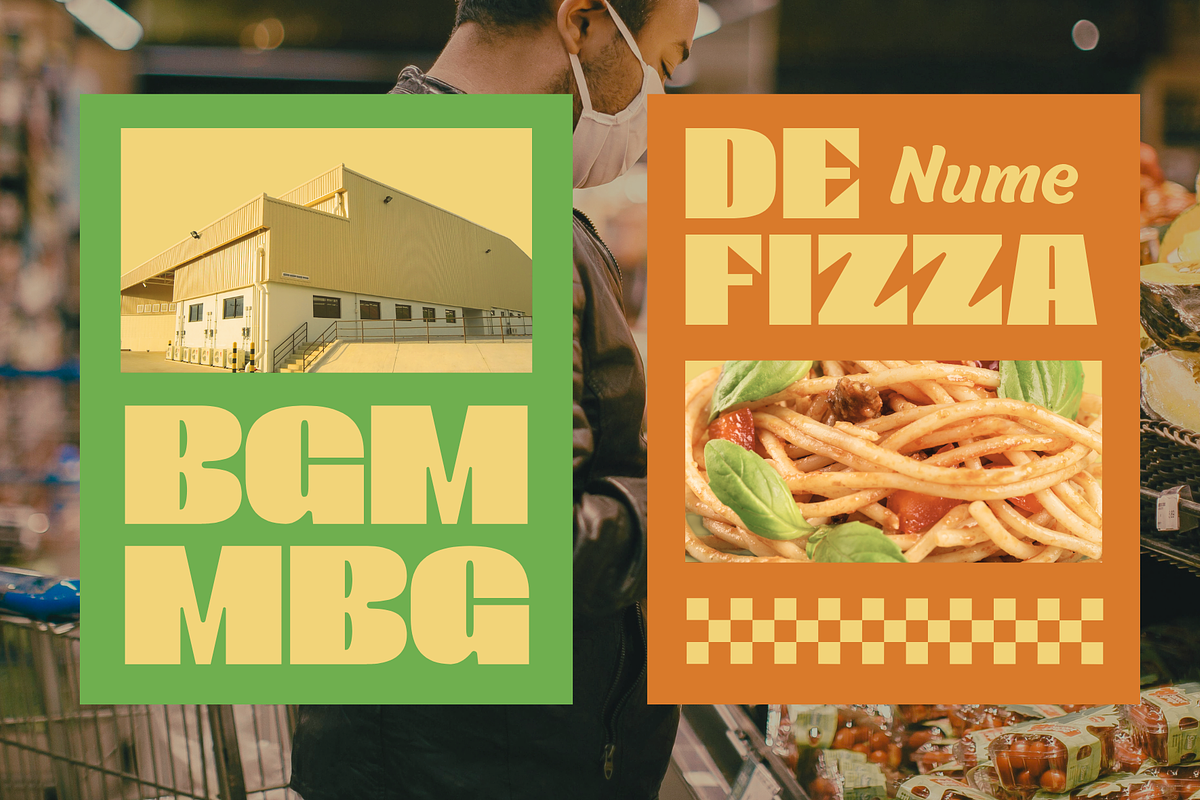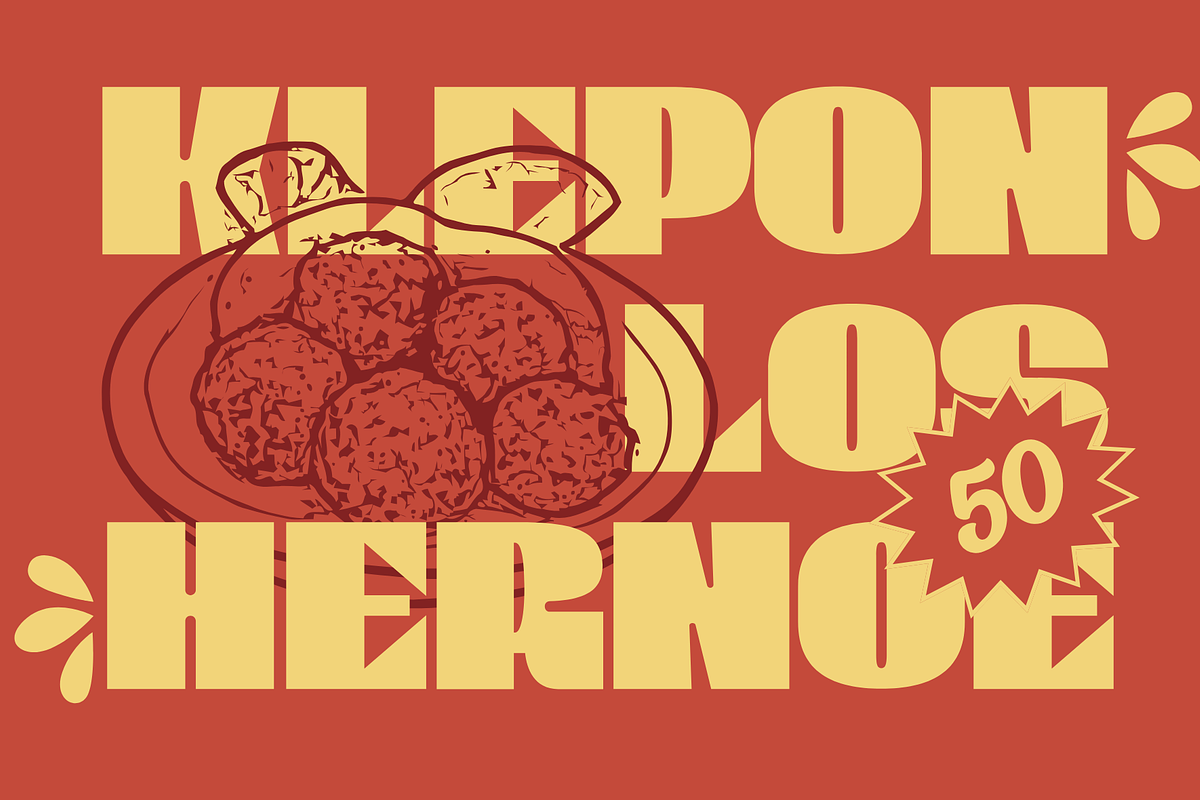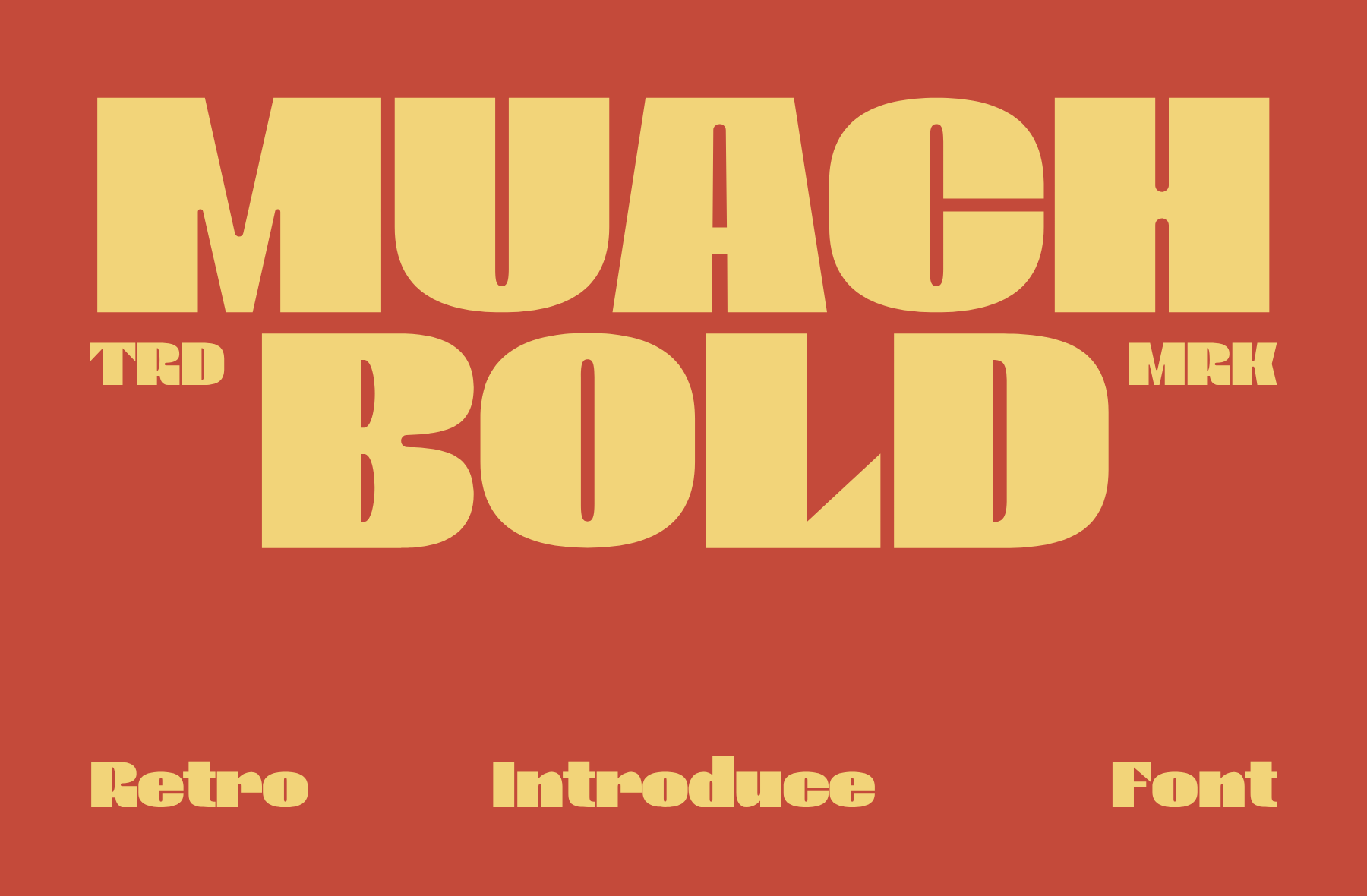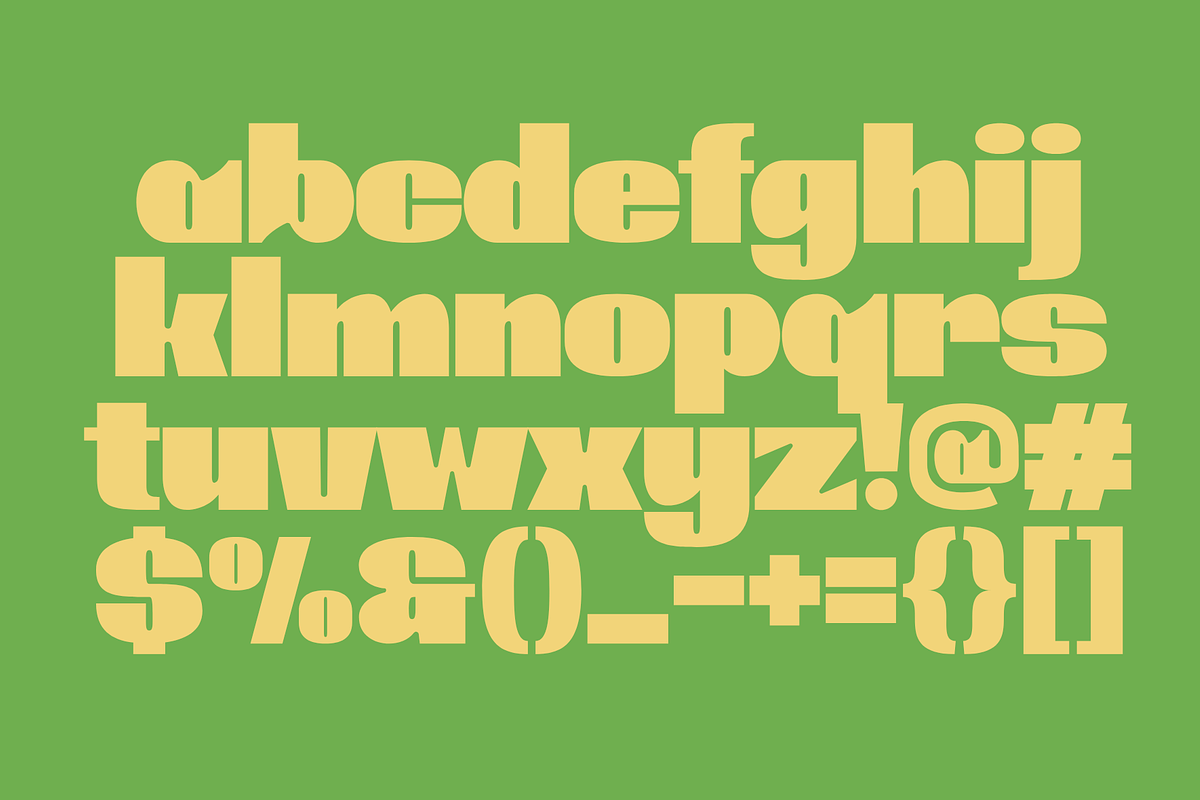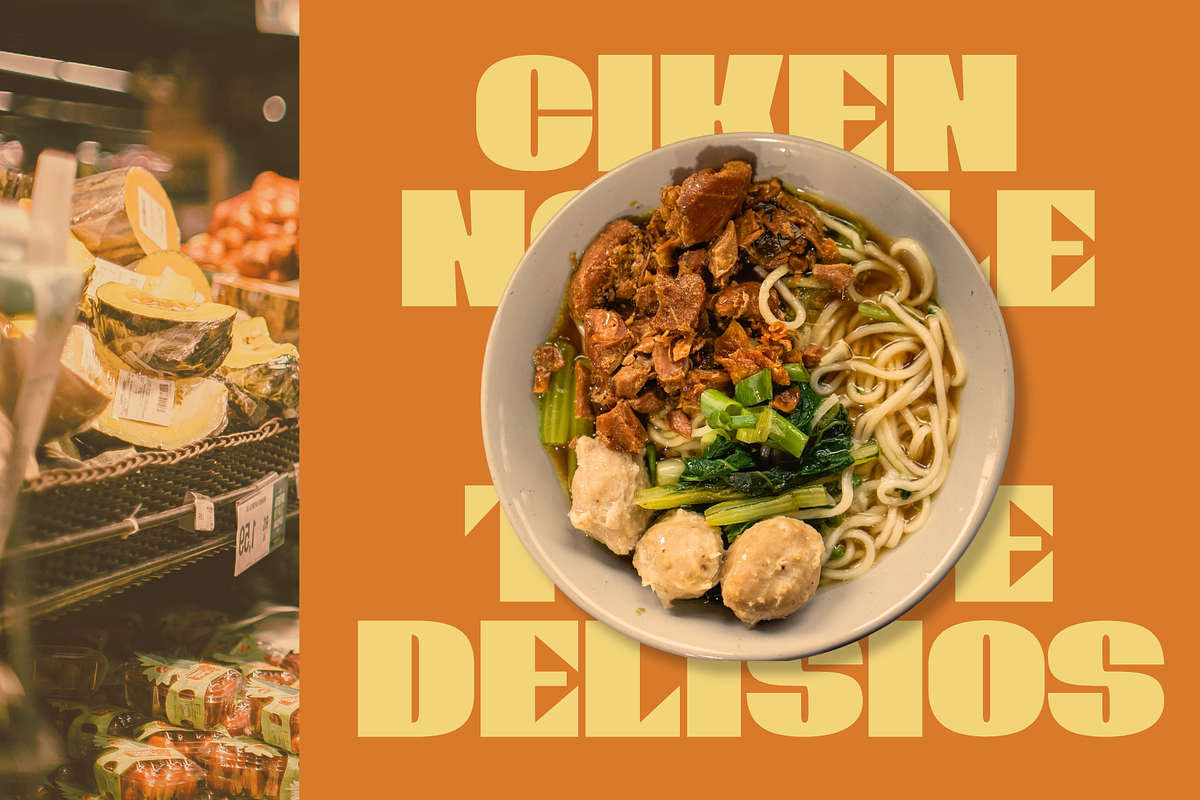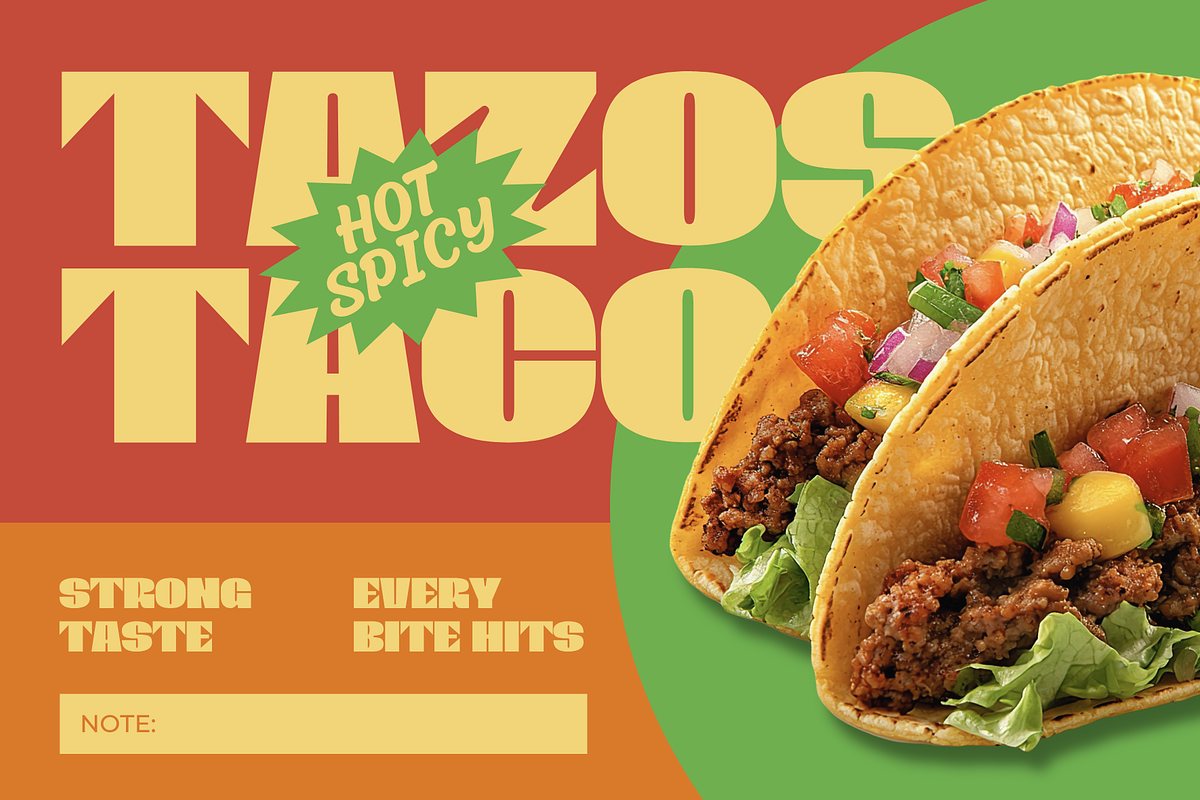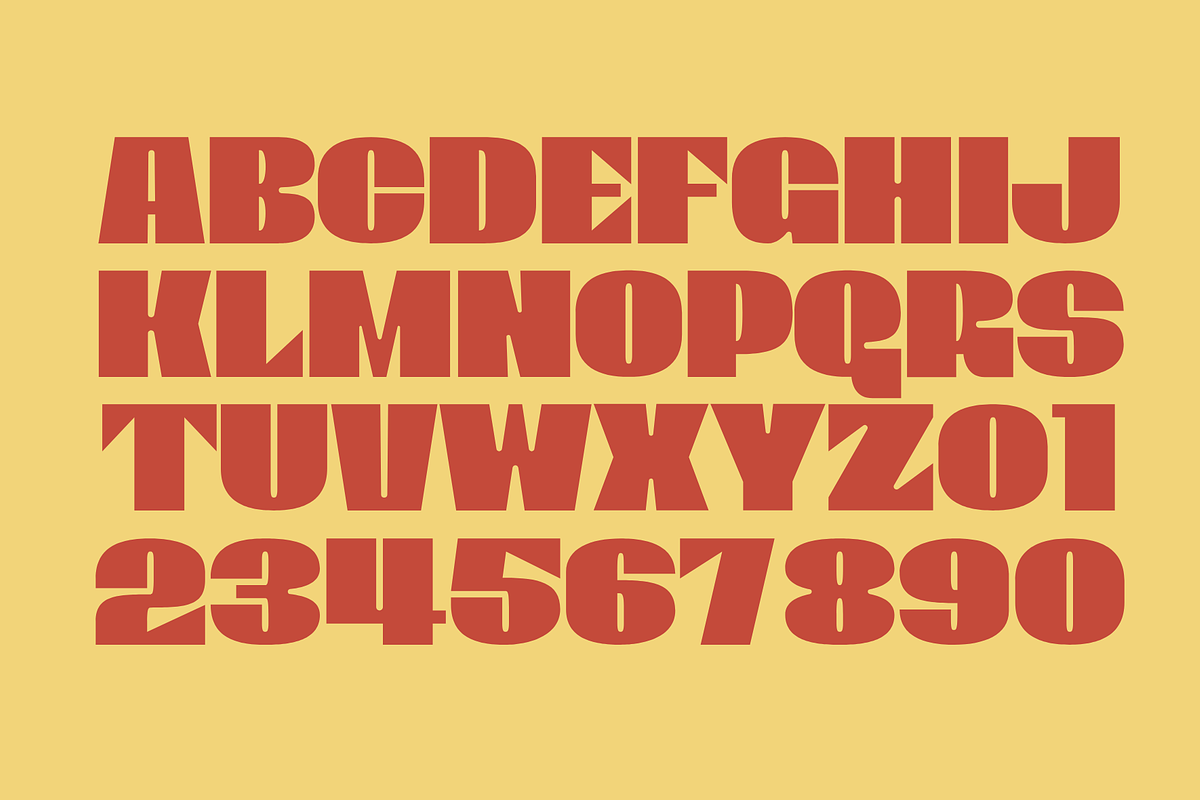
Muach Bold – Retro Display Font
Introducing our new product Muach Bold – Retro Display Font
Muach Bold is a powerful retro display font inspired by the bold typography of the 1970s and vintage advertising posters. Featuring thick letterforms, smooth curves, and a condensed structure, this typeface instantly delivers a strong visual impact while maintaining excellent readability.
Designed for eye-catching headlines and standout branding, Muach Bold brings a nostalgic yet timeless personality to any creative project. Whether you're creating retro logos, music album covers, product packaging, editorial layouts, posters, or social media graphics, this font helps your designs make a bold statement.
Its distinctive vintage aesthetic blends perfectly with modern design trends, making it a versatile choice for designers looking to add warmth, confidence, and classic character to their work.
* Uppercase
* Lowercase
* Multilingual